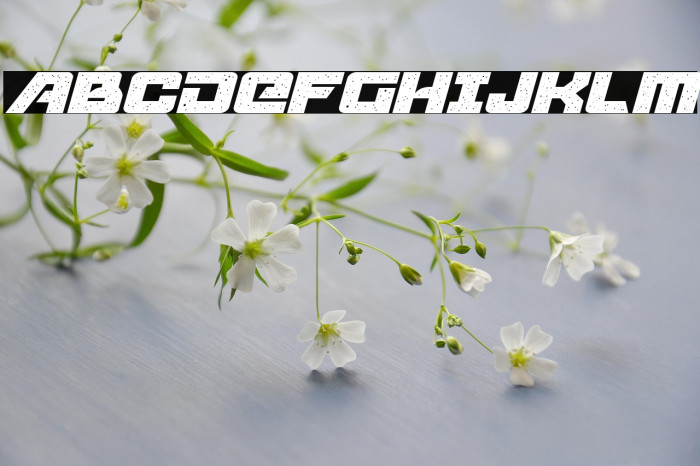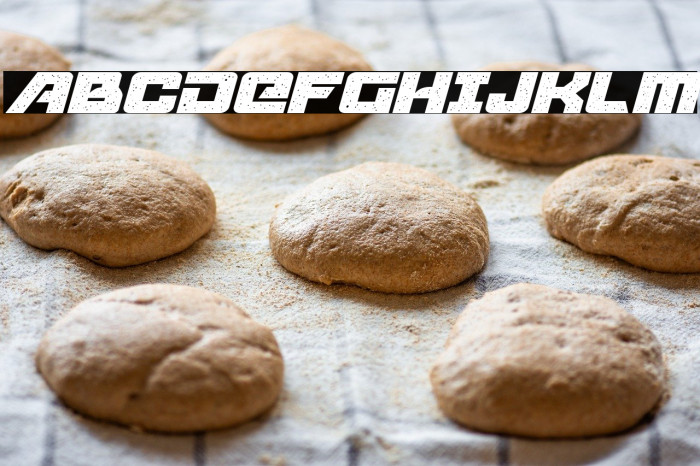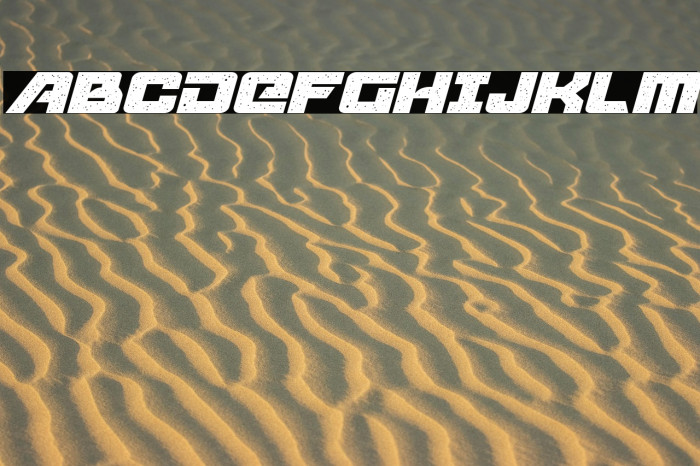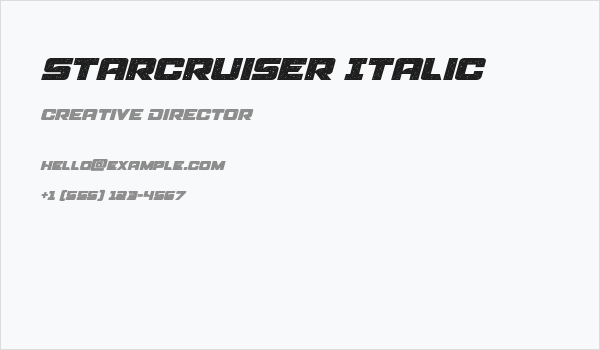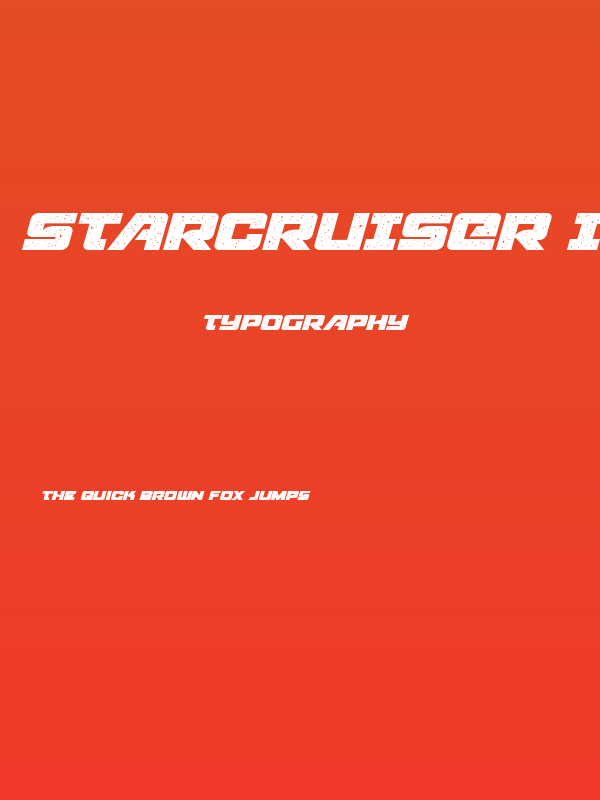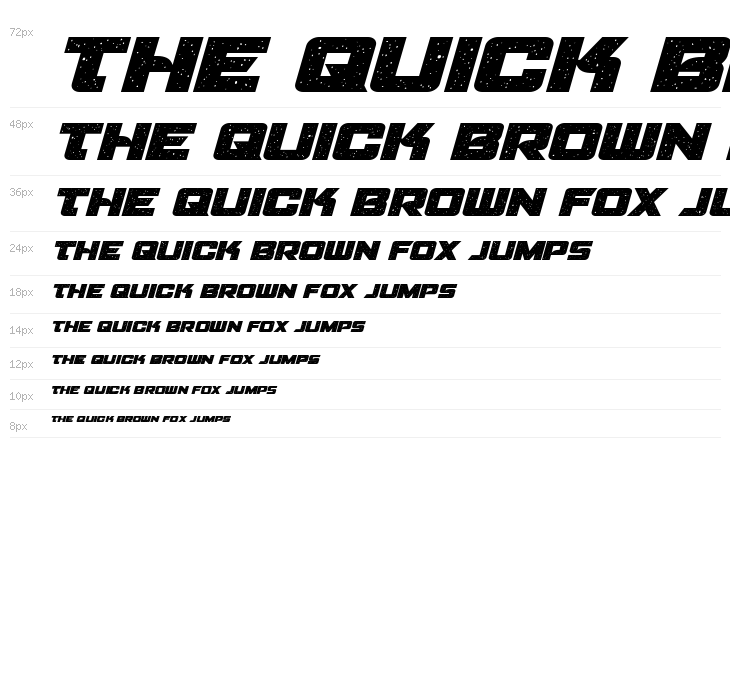
Starcruiser Italic Font
Starcruiser Italic Description
This font features a bold, italicized style with a futuristic and dynamic appearance. The characters are designed with a distinct slant, giving a sense of motion and speed. Each letter and number is filled with a starry pattern, adding a cosmic and adventurous feel. The font is highly stylized, making it suitable for creative and eye-catching designs. The uppercase and lowercase letters maintain a consistent design, ensuring readability while still being visually striking. The special characters are crafted to match the overall theme, making them ideal for thematic projects.
| Overall Style | Futuristic, Decorative |
| Proposed Projects | Ideal for sci-fi themed posters, video game titles, space-themed events, and futuristic branding. |